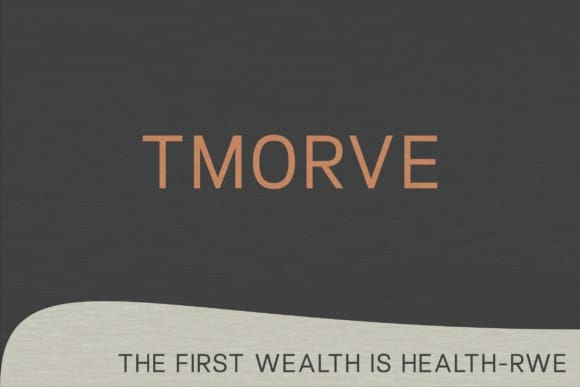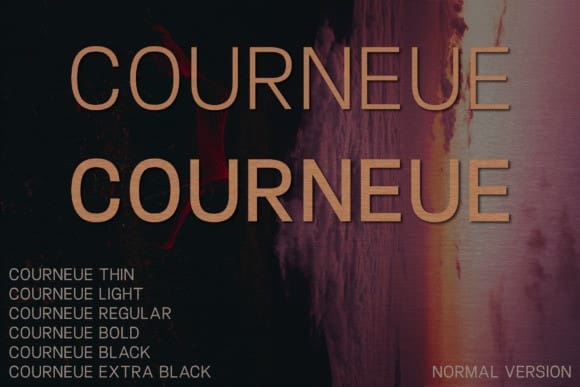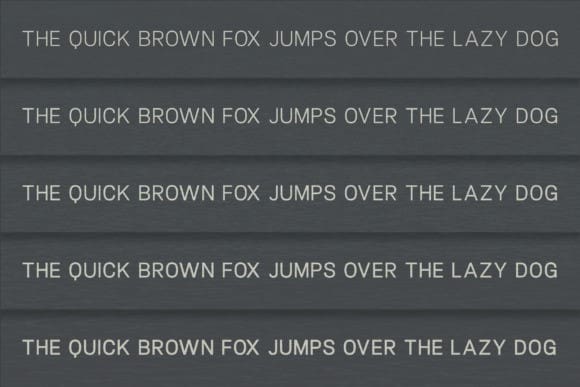
Courneue Font Family
Courneue Font Family, our refined font family that encapsulates class and simplicity. Boasting five unique weights, this sans serif compilation superbly merges the contemporary with the luxurious. Meticulously crafted, it deftly upscale any project, be it an upscale magazine, luxury branding logo, or captivating film poster. Explore a harmonious blend of finesse and straightforwardness allowing your designs to radiate an enduring allure. Experience the potential of the Courneue font family today.